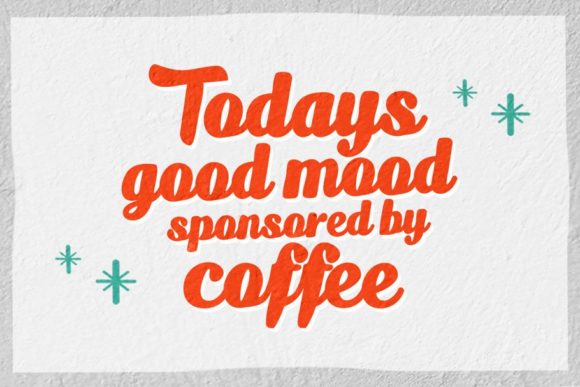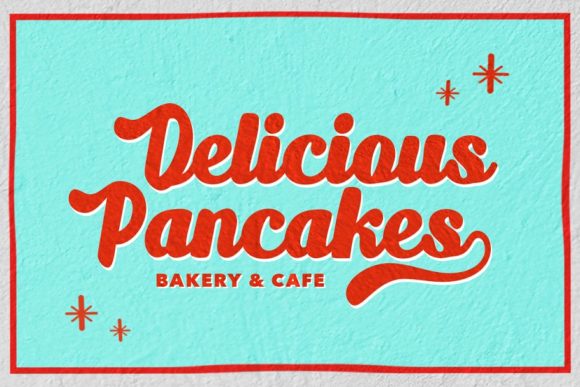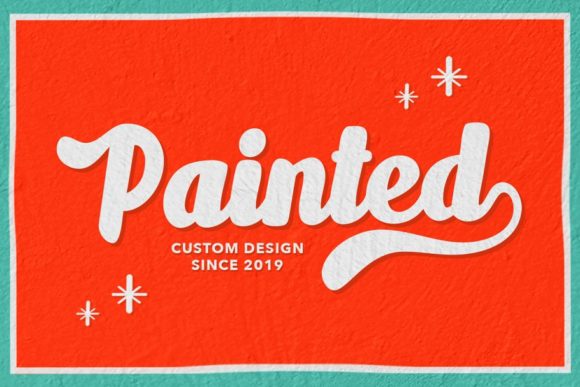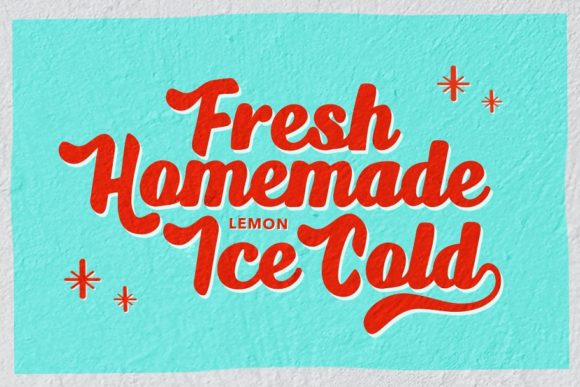
HomeScript FontsBoldka Script Font Script Fonts Boldka Script Font FacebookXPinterestWhatsApp Boldka Script Font Poster 2 Boldka Script Font Poster 3 Boldka Script Font Poster 4 Boldka Script Font Poster 5 About Boldka Script Font Boldka is a bold and chunky script with a vintage feel. It will add a nostalgic touch to any design project! DOWNLOAD ON CREATIVE FABRICAThis font is sold and delivered by Creative Fabrica. Font Canyon may earn a commission if you buy through this link. People also explored Mideer Font Batiello Font Raimond Font Aftetir Font Still Mind Font Tegar Font Jesica Smile Font Astaliaya Font Alexander Font 350 0 TagsBoldka Script Font Previous articleMargono FontNext articleKhatulistiwa Font LEAVE A REPLY Cancel reply Comment: Please enter your comment! Name:* Please enter your name here Email:* You have entered an incorrect email address! Please enter your email address here Website: Save my name, email, and website in this browser for the next time I comment. Personal Use Free Rionaldo Angelo Personal Use Free Read more about this font Ancient Script Personal Use Free Read more about this font Green Farmhouse Personal Use Free Read more about this font Septhine Personal Use Free Read more about this font BLOG 5 Fonts That Will Dominate Design Trends in 2026 5 Fonts for 2026 That Will Dominate Design Trends Typography plays a critical role in visual communication, and as we look ahead to 2026, it’s... The 10 Best Handwriting Fonts to Add Personality to Your Designs Fonts That Capture the Spirit of New York City Top 10 Handwritten Fonts That Elevate Your Designs